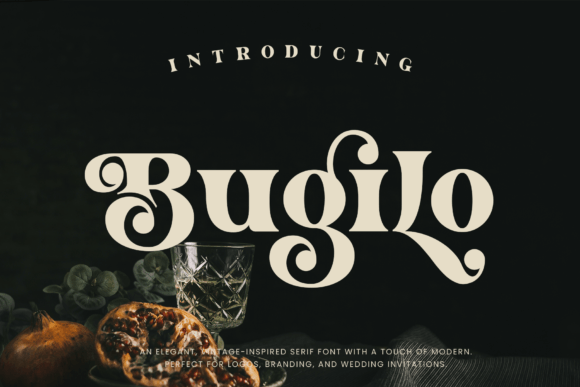
Introducing Bugilo Font, the perfect serif font for your wedding program! Created by SayStudio, Bugilo is not just an ordinary font—it is a nostalgic journey back in time, exuding an incredible vintage aesthetic that will captivate your imagination.
With Bugilo, you can effortlessly add that special retro touch to any design idea you can think of! Its playful and charming nature will instantly transport you to a bygone era, creating a sense of warmth and familiarity in your projects.
But Bugilo is not just about aesthetics; it is a versatile font that comes with alternatives, giving you endless possibilities to create stunning logos, quotes, posts, blog posts, branding projects, magazine imagery, wedding invitations, and so much more.
Each character of Bugilo has been masterfully designed to perfection, ensuring that it becomes your true favorite font. It has the power to elevate your creative ideas to the highest level, making them stand out and leave a lasting impression on your audience.
One of the standout features of Bugilo is its PUA encoding. This means that accessing all the glyphs and swashes is incredibly easy. You can effortlessly add those elegant flourishes and decorative elements to your designs, giving them an extra touch of sophistication and elegance.
Imagine the impact Bugilo will have on your wedding program. It will transport your guests back in time, creating a sense of nostalgia and enchantment. Your invitations will become works of art, capturing the essence of your special day in a way that no other font can.
Bugilo is not just a font; it is an experience. It evokes emotions, tells stories, and breathes life into your designs. Let Bugilo become your creative companion and unlock a world of endless possibilities.